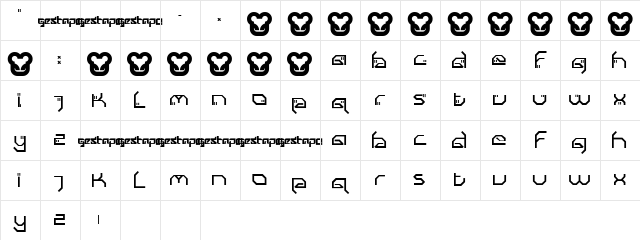
Submit Regular
Submit Family
Design Context for Submit
Submit is a composed and adaptable typeface that performs quietly and consistently across a wide range of design contexts.